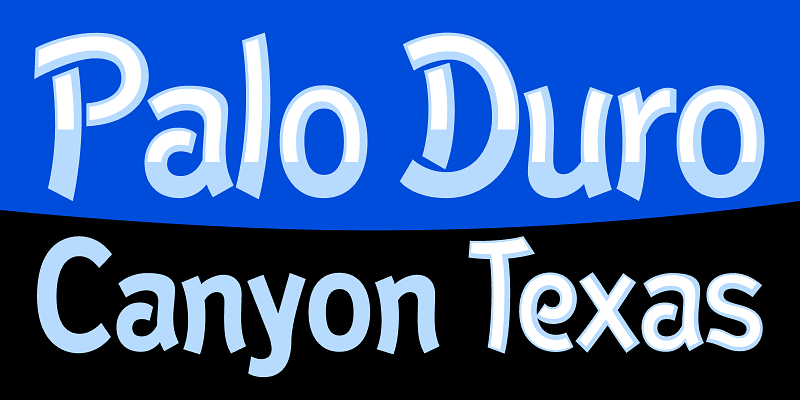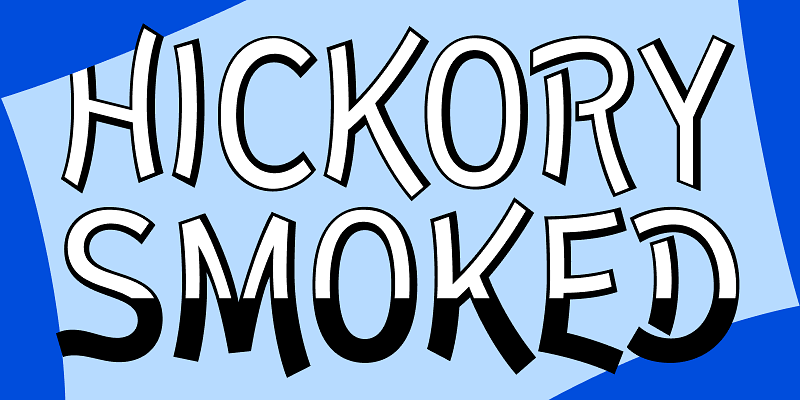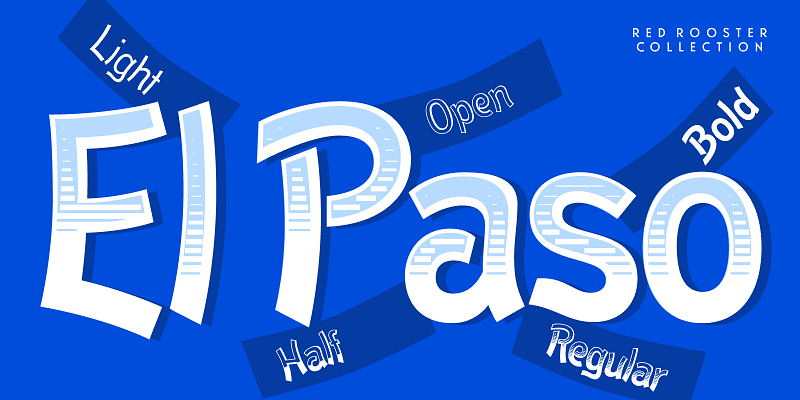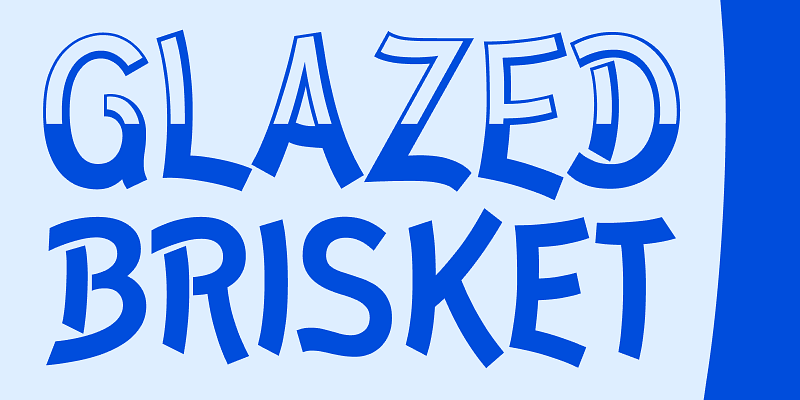
In the 1970s, Face Photosetting, London, was known as the preeminent typesetting house. Steve Jackaman (ITF) worked at Face in the original studios located on Newman Street, and then later at their new location at Hanway Place. El Paso was a unique single typeface design from the Face archives. It was redesigned and expanded into a family in 2011 by Steve Jackaman and Ashley Muir. El Paso has a celebratory, south-of-the-border, relaxed feel and parties hard in all sizes.